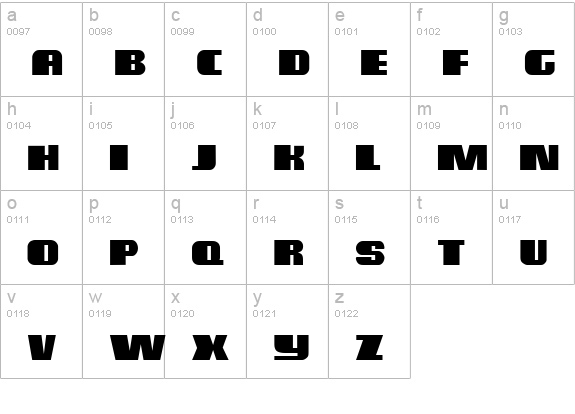
Miele font is a stunning typeface that exudes elegance and sophistication. With its sleek lines and modern aesthetic, Miele is perfect for adding a touch of class to any design project. This versatile font can be used for a variety of purposes, from branding to editorial design. The best part about Miele font? It's completely free! That's right, you can download this beautiful typeface at FontsMarket.com without spending a dime. Don't miss out on the opportunity to enhance your designs with the timeless beauty of Miele font. Download it today and see the difference it can make in your projects!